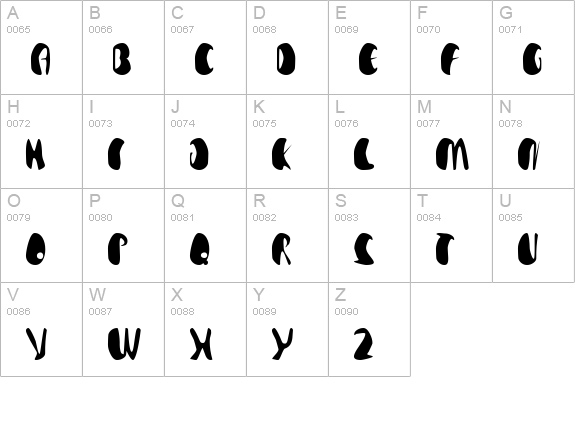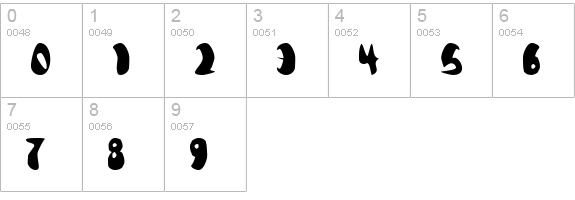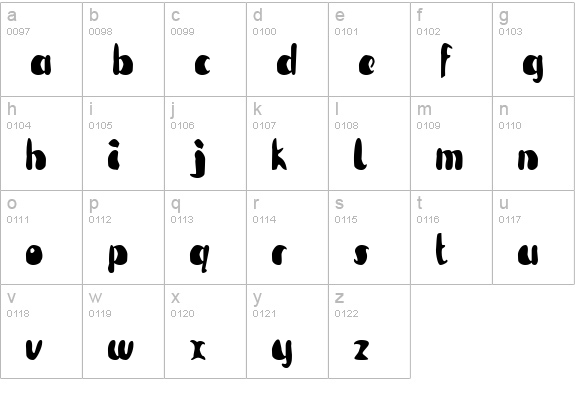
TM Beguiled Font Details
TM Beguiled is a captivating and enchanting font that will mesmerize you with its graceful curves and elegant lines. This font exudes a sense of mystery and allure, making it perfect for adding a touch of magic to any design project. With TM Beguiled, your text will come alive, effortlessly capturing the attention of your audience. Its unique and intricate details make it stand out, while still maintaining a sense of sophistication and refinement. Whether you're creating a logo, designing a wedding invitation, or crafting a poster, TM Beguiled will elevate your work to new heights. What makes TM Beguiled even more enticing is that it is available for free download at FontsMarket.com. Yes, you read that right - this stunning font can be yours without any cost. It's a generous offer that allows you to access and use this beautiful typeface in all your personal and commercial projects. FontsMarket.com is a trusted source for high-quality fonts, and TM Beguiled is no exception. The website offers a wide range of fonts, from classic to contemporary, ensuring that there is something for every creative need. And with TM Beguiled being freely available, there's no reason not to explore this captivating font and unlock its potential. So why wait? Download TM Beguiled today and let its charm and elegance transform your designs. With this font in your toolkit, you'll be able to captivate your audience and leave a lasting impression. Don't miss out on this opportunity to add a touch of magic to your creative projects - head over to FontsMarket.com and get TM Beguiled now.